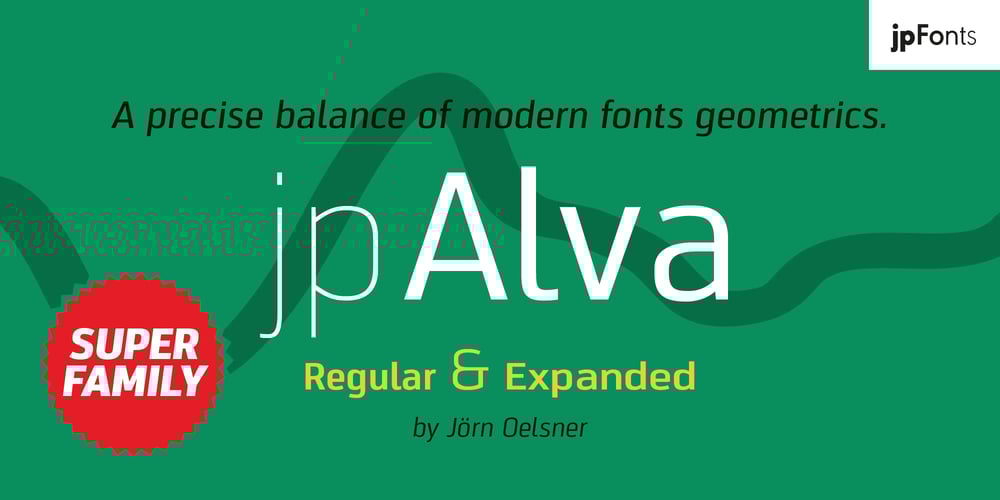
JP Alva Expanded Font Family was designed by Jörn Oelsner and published by jpFonts. JP Alva Expanded contains 20 styles and family package options. jpAlva is a technical and functional sans-serif that consists of 40 typefaces, divided in 2 font families jpAlva and jpAlva Extended. A universal family of typefaces that fits pretty much any purpose. It illustrates a precise balance of modern geometrics, with a functional yet sparing style that effectively communicates without distraction. A straightforward, unadorned appearance with efficient construction. Simple, clean with a technical note and a wide range of styles it is perfectly suitable for a wide range of applications, from identity systems to editorial design, from signage systems to software applications. Designed with powerful OpenType features (e.g. figure sets, fractions, ligatures, case sensitive forms) and extended language support, it is easy and enjoyable to use.